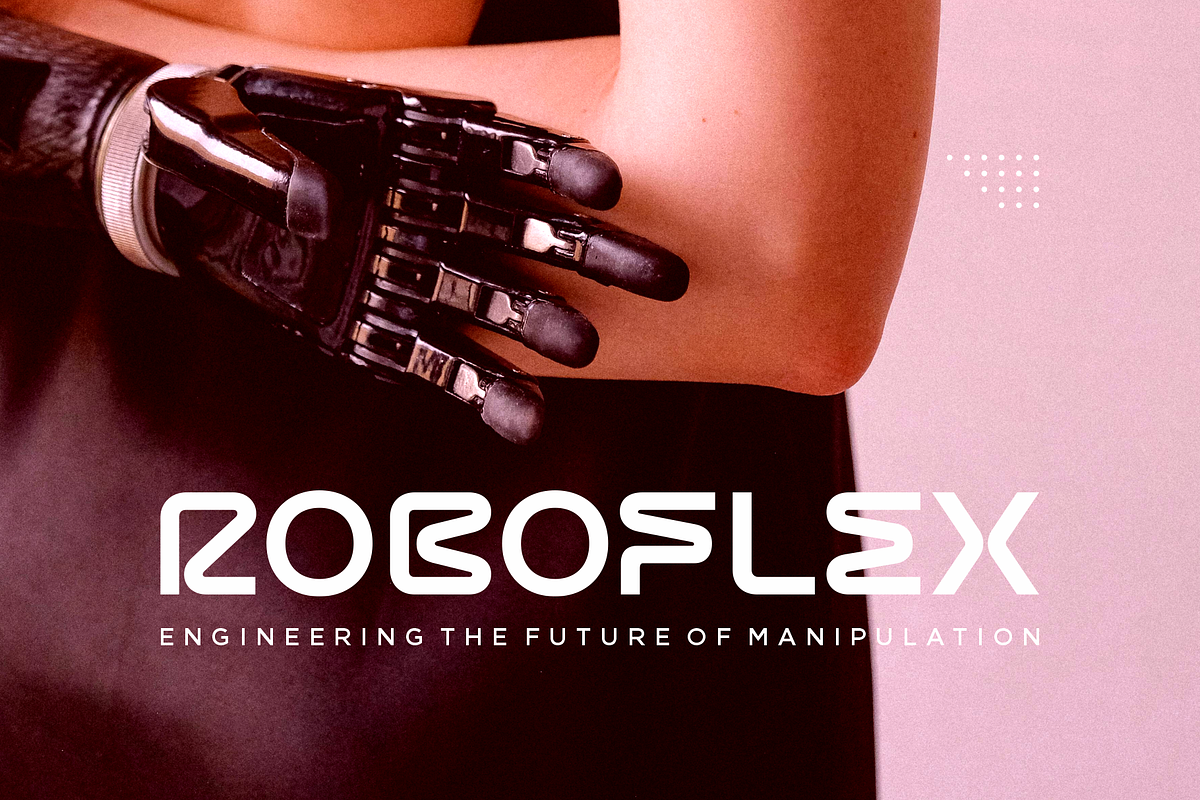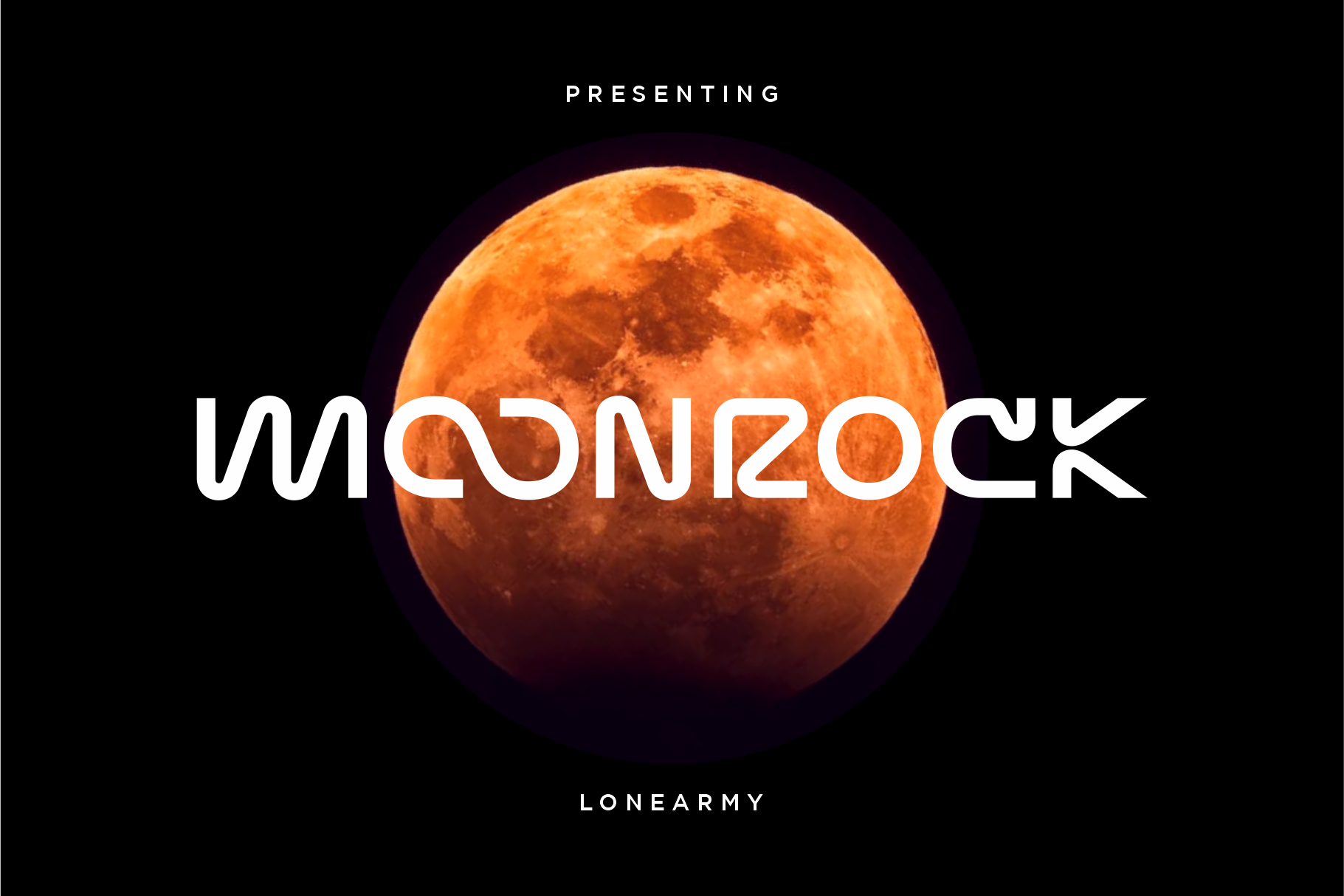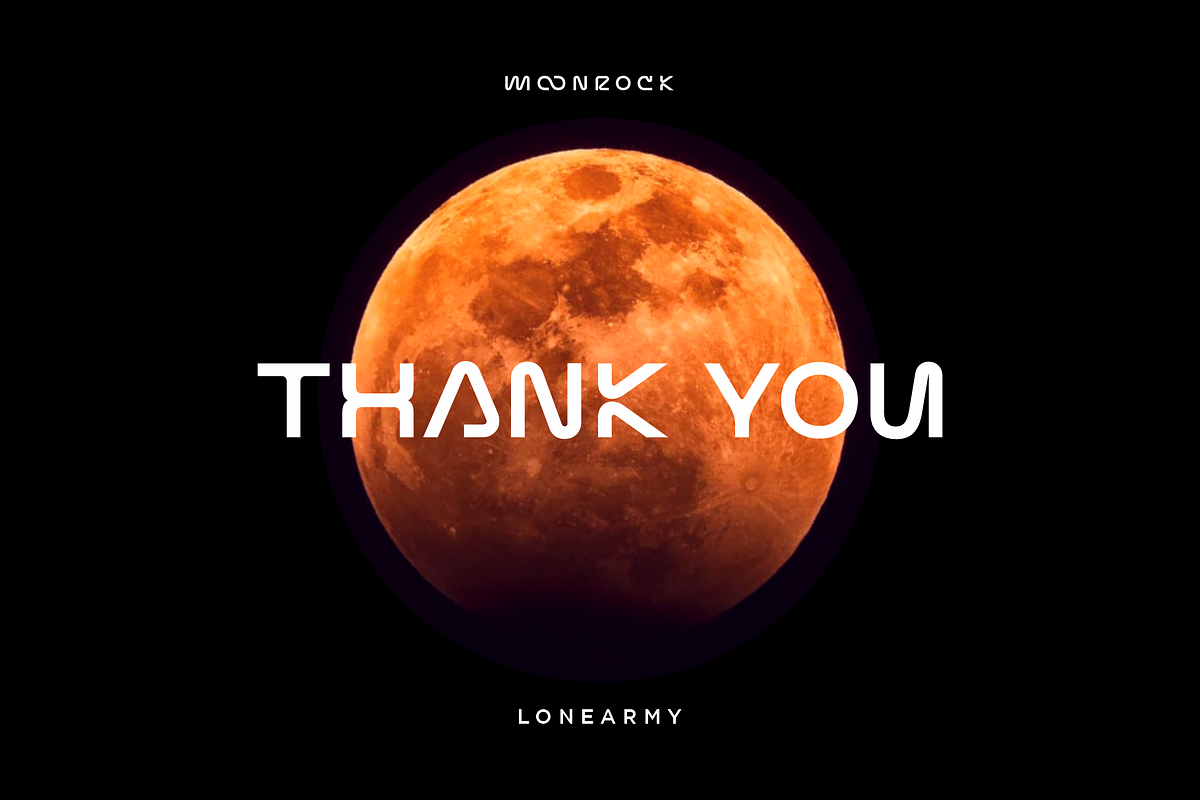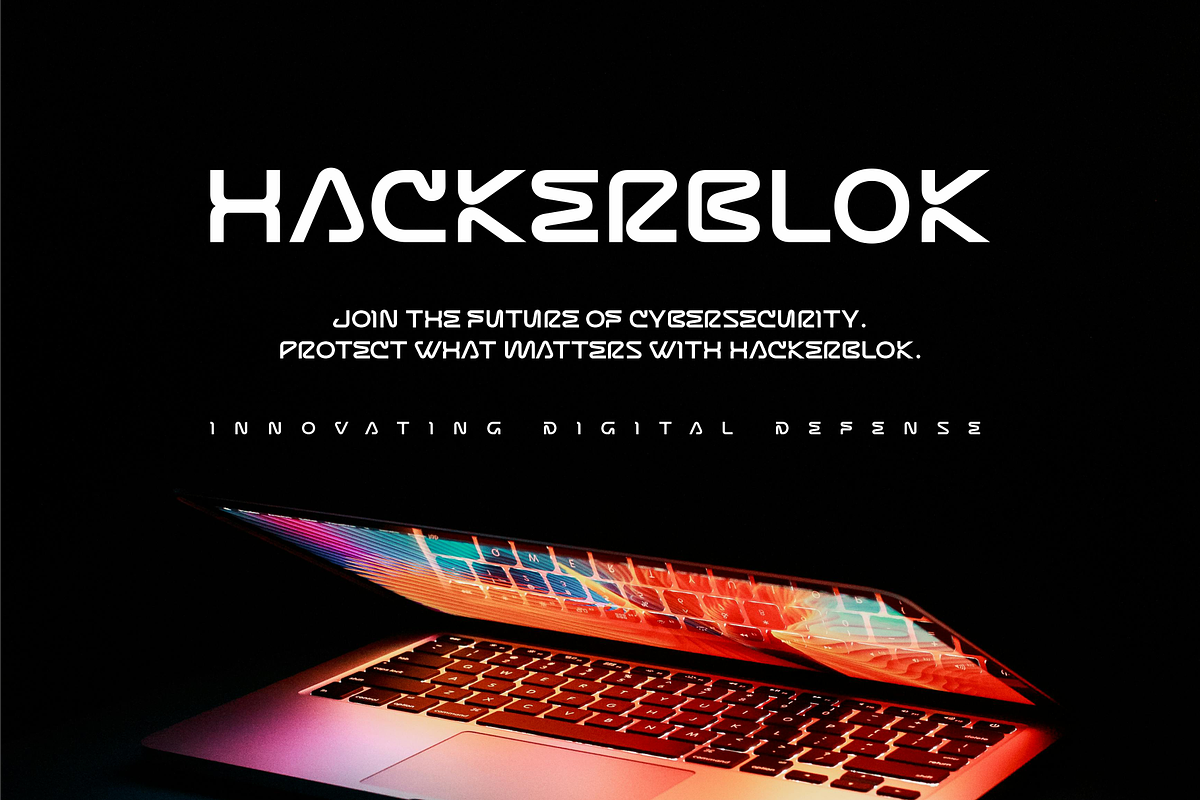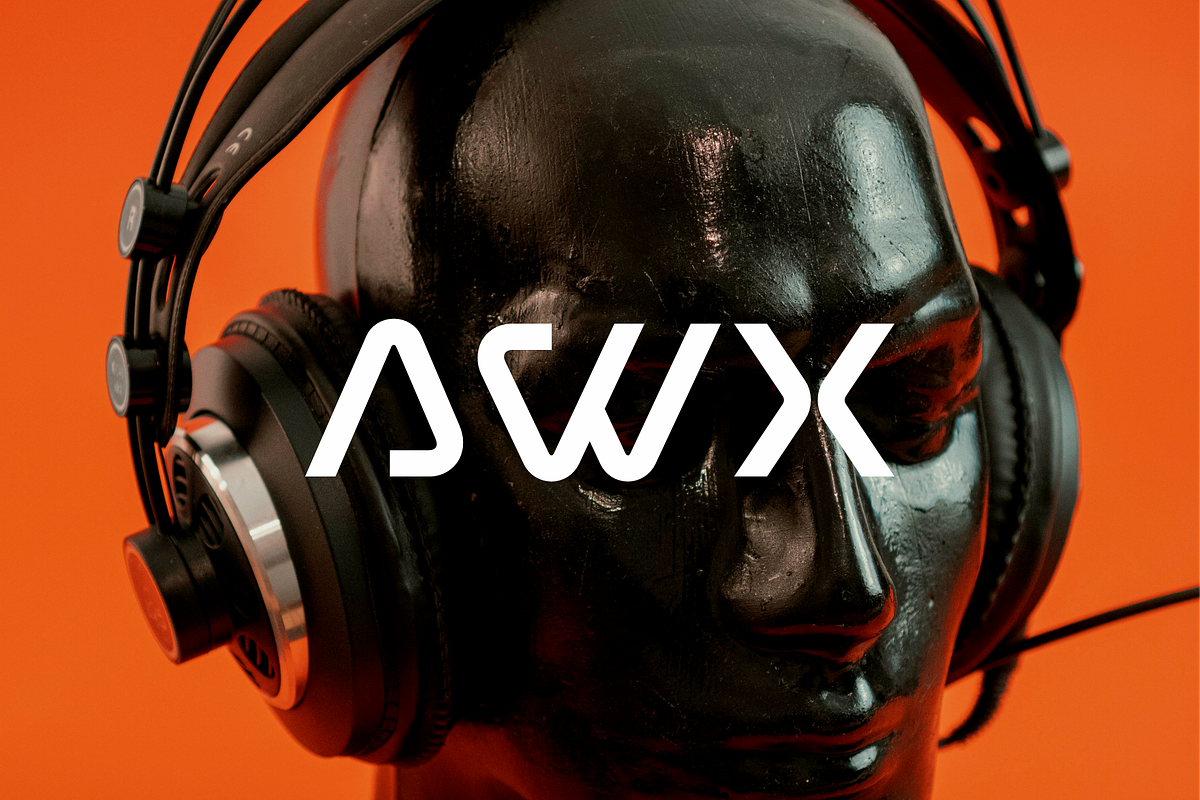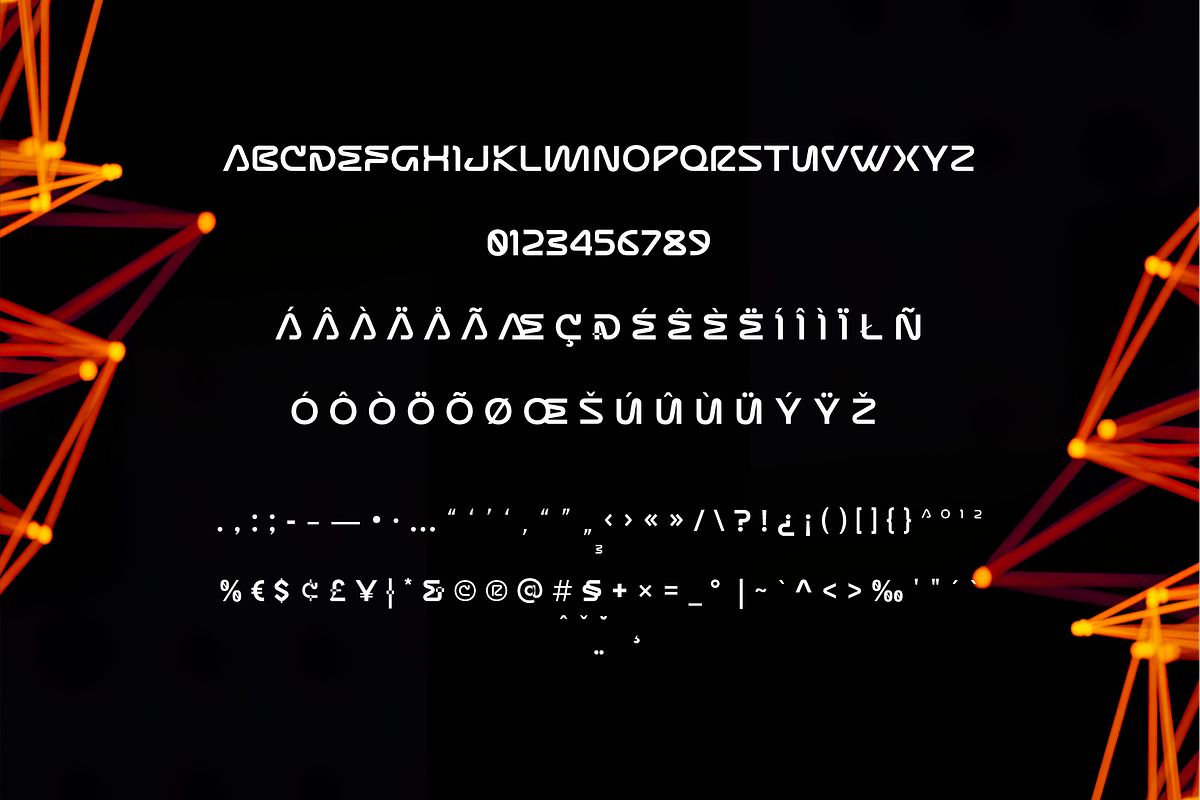
Moonrock Futuristic Font
Moonrock is a cutting-edge futuristic modern tech font designed for those who envision the future. With sleek lines, geometric precision, and a bold aesthetic, Moonrock captures the essence of innovation and progress. Perfect for technology-driven designs, branding, and digital interfaces, this font brings a forward-thinking attitude to any project. Moonrock is more than just a font; it's a statement of modernity and a symbol of the boundless possibilities that lie ahead.